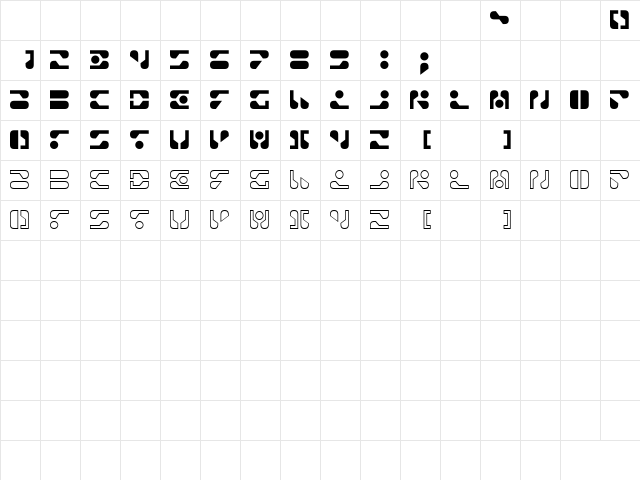
TOILET Regular
Design Context for TOILET Typeface
TOILET is a composed and adaptable typeface that performs quietly and consistently across a wide range of design contexts.